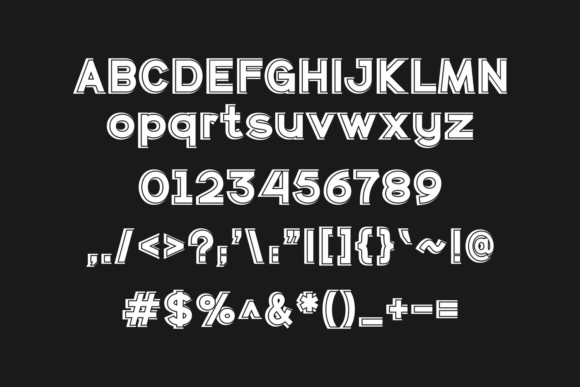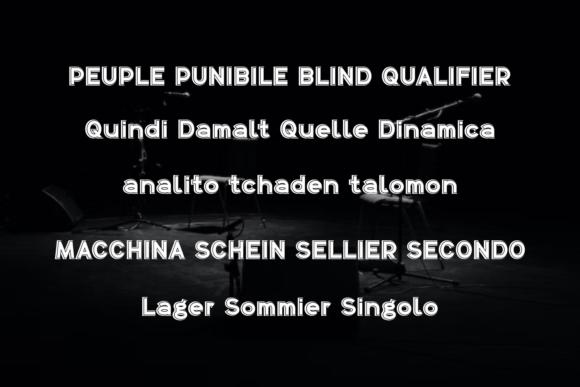
Introducing Bluding Font: A Cool and Unique Display Font
Are you tired of using the same old fonts in your designs? Look no further! Bluding Font is a game-changer for designers and crafters alike. This cool and unique display font is neatly crafted and highly detailed, making it the perfect addition to your font library.
What Makes Bluding Font Special?
Bluding Font is a versatile font that can be used for a wide range of projects. Whether you’re designing a logo, creating a social media graphic, or crafting a beautiful poster, this font will help your creation stand out from the crowd. Its unique design and high level of detail make it an excellent choice for any project that requires a bit of personality.
Key Features of Bluding Font
- Unique Design: Bluding Font has a one-of-a-kind design that will add a touch of elegance and sophistication to any project.
- Highly Detailed: The font is carefully crafted with attention to detail, ensuring that it looks great in any size or application.
- Versatile: Bluding Font can be used for a wide range of projects, from logos and posters to social media graphics and more.
- Easily Readable: Despite its unique design, Bluding Font is easy to read, making it perfect for use in body text or headlines.
Benefits of Using Bluding Font
There are many benefits to using Bluding Font in your designs. Some of the most significant advantages include:
- Increased Creativity: Bluding Font’s unique design will inspire you to think outside the box and try new things in your designs.
- Improved Readability: The font’s clear and easy-to-read design ensures that your message will be communicated effectively.
- Enhanced Professionalism: Bluding Font’s sophisticated design will add a level of professionalism to your designs, making them perfect for business or personal use.
Who Can Benefit from Using Bluding Font?
Bluding Font is perfect for a wide range of designers and crafters, including:
- Graphic Designers: Bluding Font is a great addition to any graphic designer’s font library, and can be used for a variety of projects.
- Social Media Managers: The font’s unique design and high level of detail make it perfect for creating eye-catching social media graphics.
- Crafters: Bluding Font can be used in a variety of crafting projects, from card making to scrapbooking.
- Small Business Owners: The font’s professional design makes it perfect for use in business branding and marketing materials.
Bluding Font is a cool and unique display font that is sure to enhance any creation. Its highly detailed design and versatility make it a valuable asset to any font library. Whether you’re a graphic designer, social media manager, crafter, or small business owner, Bluding Font is a great choice for any project. So why wait? Download Bluding Font today and take your designs to the next level!